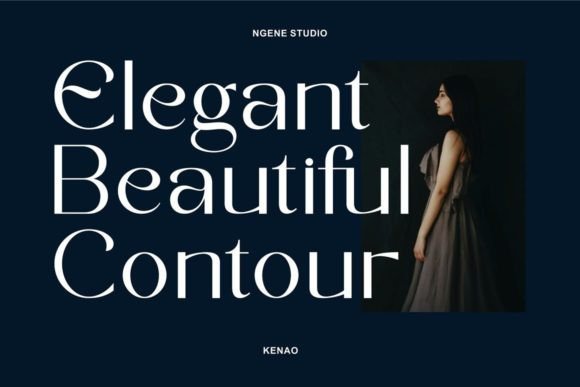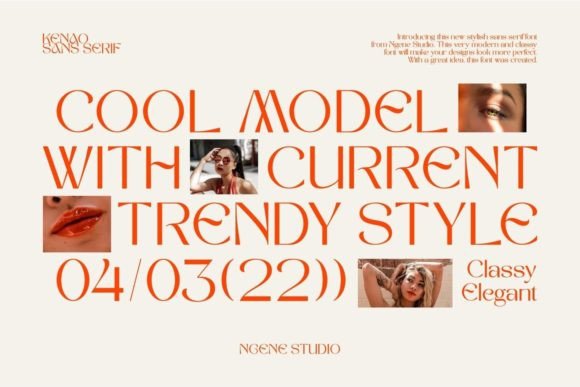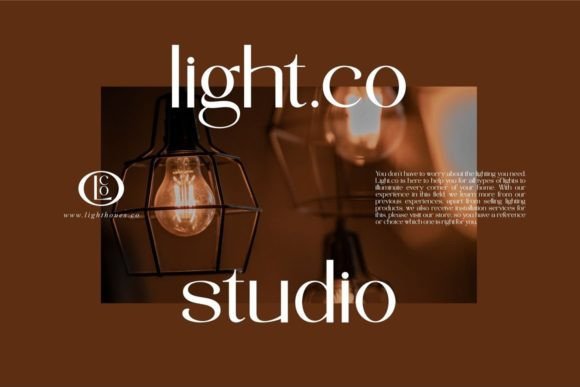
Kenao Font: Elegant Sans Serif for Modern Logo Design & Branding
About the Kenao Font
Meet Kenao Font, a stunning font that brings a touch of elegance and professionalism to any design. Kenao is a stylish and elegant sans serif font with a feminine energy. Chic and charming, this font is suitable for a wide range of trendy designs.
Kenao excels in branding applications, particularly for products targeting a female demographic or those emphasizing elegance and sophistication. It works beautifully in headlines, short marketing copy, and logo designs. Avoid using Kenao for large blocks of body text or user interfaces; its delicate forms can become difficult to read at smaller sizes.
Pairing Kenao with a classic serif like Garamond or a clean geometric sans-serif like Montserrat creates a balanced and visually appealing contrast. For a more playful feel, consider pairing it with a script font such as Allura, but use sparingly to avoid overwhelming the Kenao’s inherent elegance.
Its core personality is sophisticated and feminine, projecting a sense of charm and subtle strength. Brands focusing on fashion, beauty, or luxury goods would find Kenao an ideal choice.
Kenao Font Usage Examples